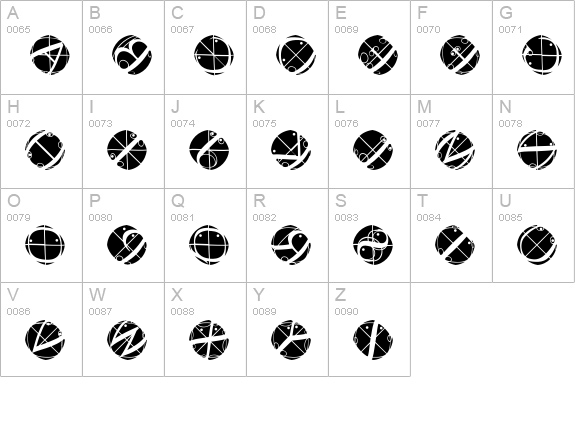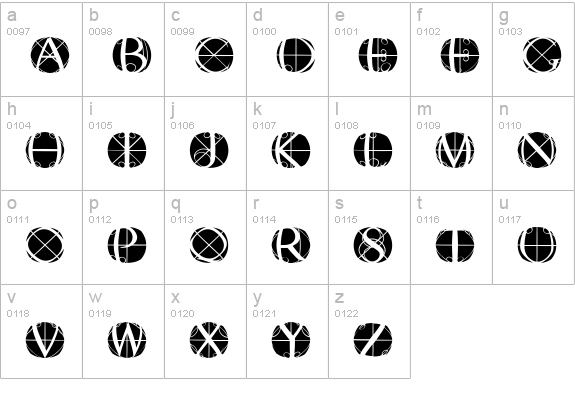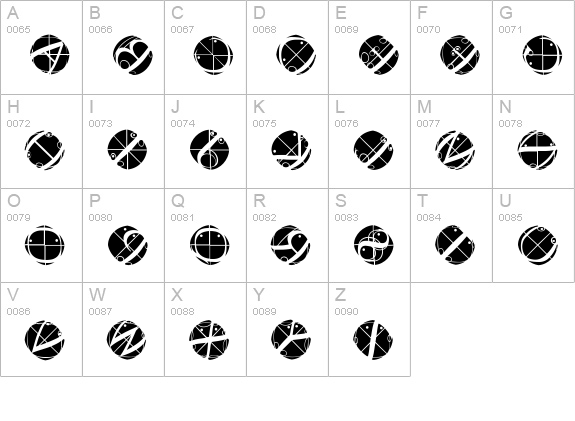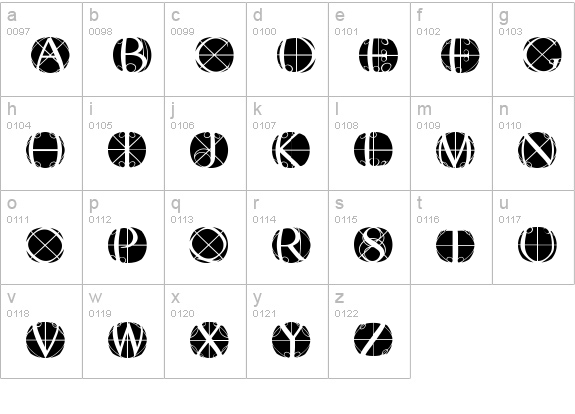
RodauButtonsInverse font is a modern and stylish typeface that features a unique, inverted button-like design. With its bold and eye-catching appearance, this font is perfect for creating attention-grabbing headlines, logos, and posters. The distinctive buttons add a touch of playfulness and creativity to any design project. What makes RodauButtonsInverse font even more appealing is that it is available for free download at FontsMarket.com. This means you can easily access this versatile font and use it in your personal or commercial projects without any cost. Embrace the creativity and uniqueness that RodauButtonsInverse font offers, and elevate your designs to the next level.